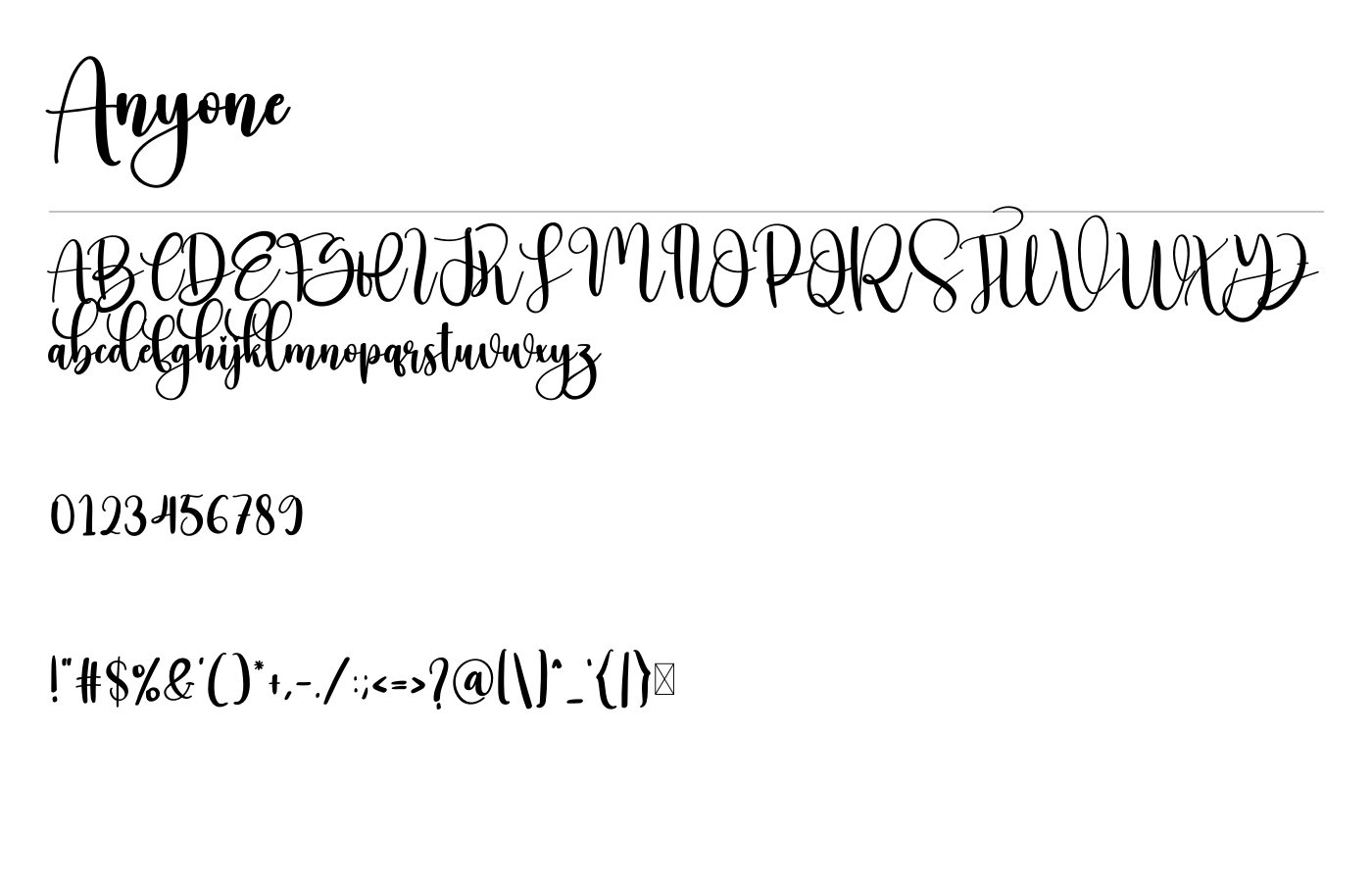
Anyone Font is a lively and elegant script typeface characterized by its flowing, calligraphic strokes and delicate swashes. Its playful yet sophisticated style makes it perfect for wedding invitations, branding, and feminine or creative projects that seek a personal touch. The font’s distinctive uppercase letters and smooth lowercase forms offer a charming and artistic feel that enhances headlines and decorative text.
Anyone Font
About Anyone Font